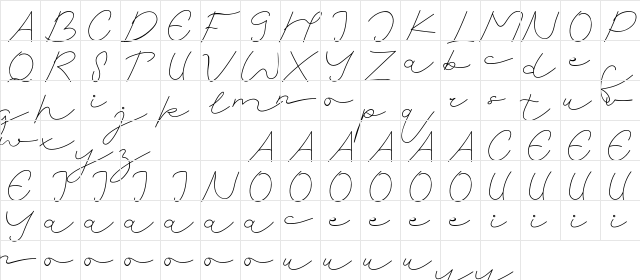
Brusly Name Demo Signature Regular
| Foundry | Edric Studio |
| Designer | Yasri Ainun & Suci Anita |
Design Context for Brusly Name Demo Signature Typeface
Brusly Name Demo Signature is a composed and adaptable typeface that performs quietly and consistently across a wide range of design contexts.